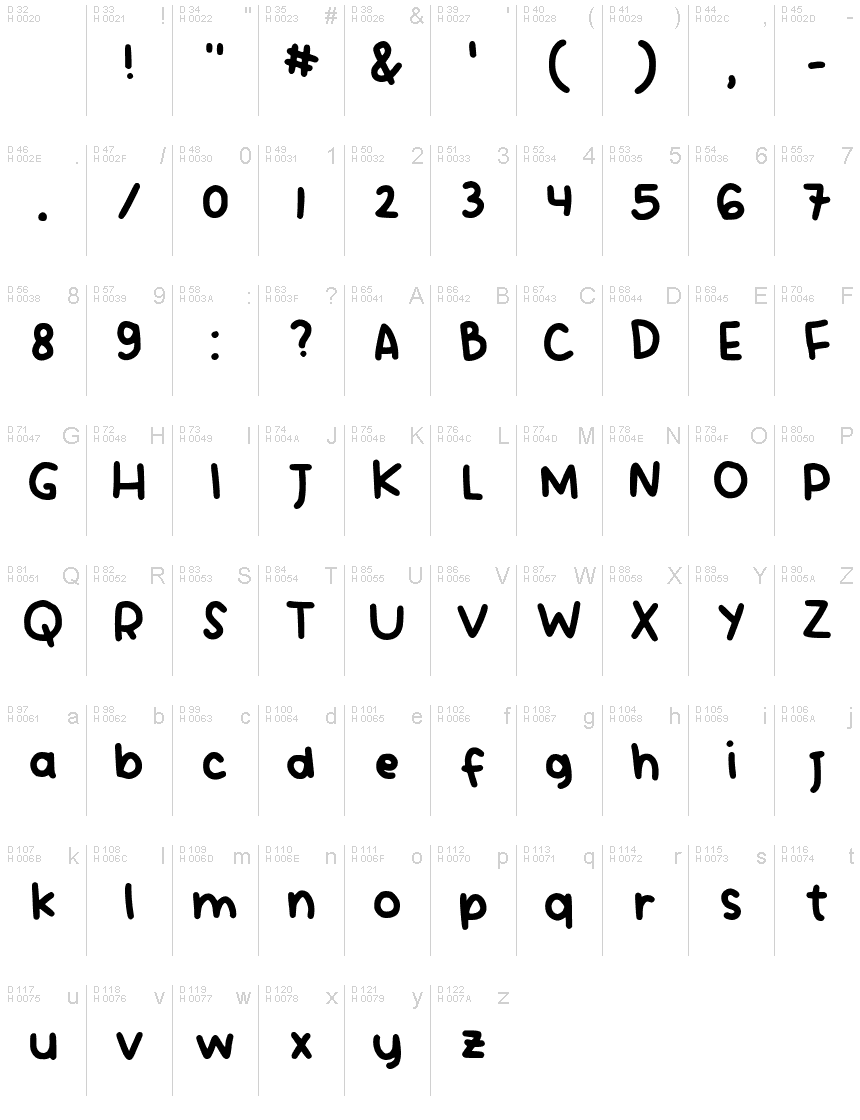
Vividly Regular
hello! this is my first attempt to create a font and i hope you enjoy this one. the font is made by a bold stroke hence that's exactly the reason why i named it vividly.